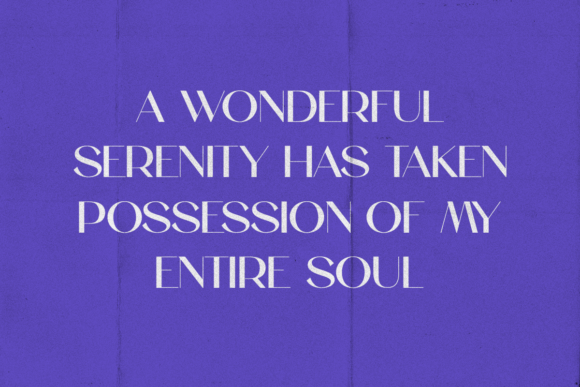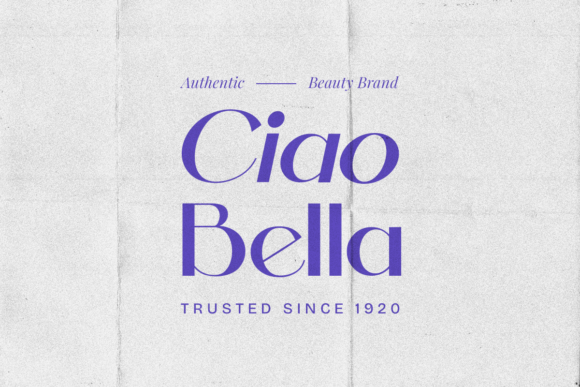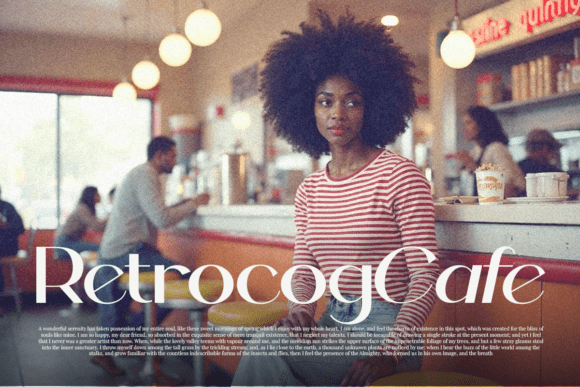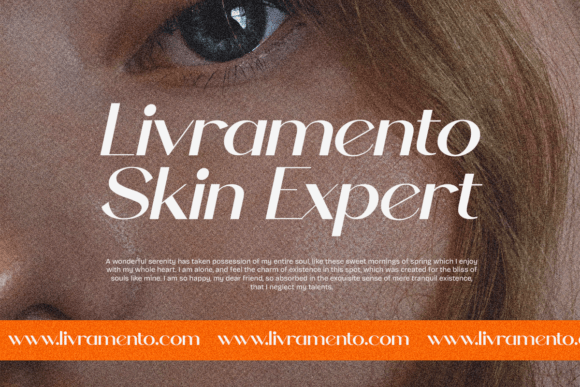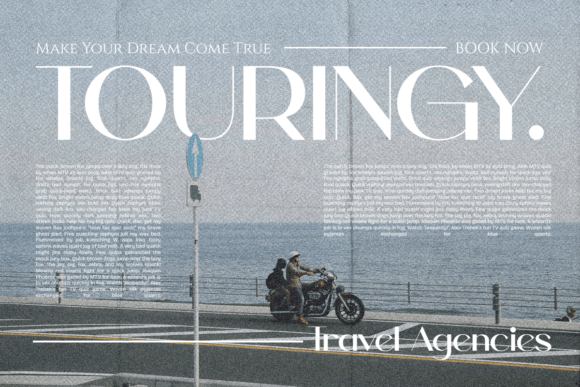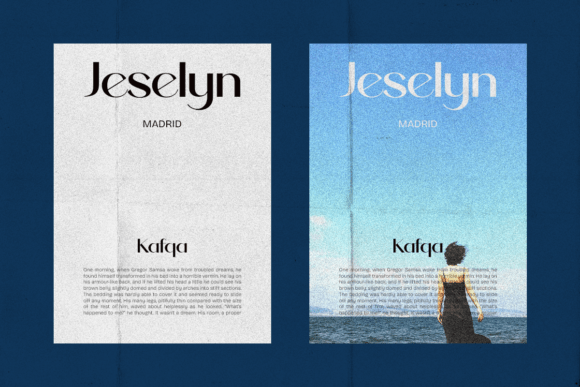
Barytons Font – Free Download
Introduction to Barytons Font
Say hello to Barytons, a clean and modern sans serif font designed to bring simplicity and elegance to your creative work.
| 👤 Author | Koplexs Studio |
With its sleek, geometric letterforms, Barytons is a perfect fit for branding, editorial design, logo work, web headers, and more This typeface comes in two versatile styles – Regular and Italic – giving you the flexibility to create strong typographic contrast while keeping your designs consistent and professional.
Key Features of Barytons Font
Why Choose Barytons Font?